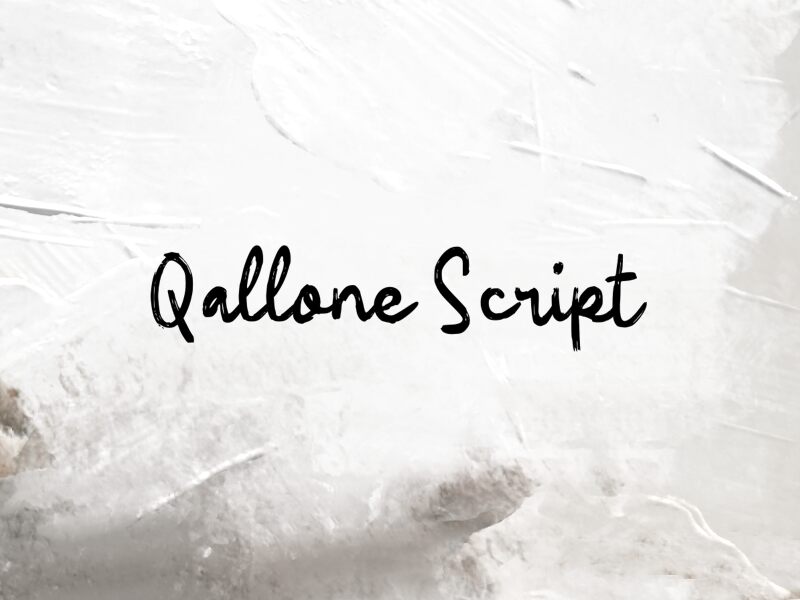
Qallone Script font by wep is a free brush font with a contemporary look inspired by modern scripts. The font is designed to suit a wide range of personal and professional projects as it comes with a casual and playful atmosphere thanks to its handwritten aesthetic, organic feel, and relaxed vibe. The informal style allows for inviting and friendly typography suitable for effective communication.
Qallone Script can be used in branding, identity design, invitation cards, greeting cards, social media, ads, posters, flyers, product packaging, merchandise, labels, magazines, newsletters, and more. The versatile font can be used in points of sale for shopping windows, online marketing for developing your following, or in journals as part of the personal calligraphy of a greeting card or invitation.
Qallone Script is a beautifully crafted free font that combines elegance with modern flair. It is perfect for a variety of design projects, including branding, invitations, and social media graphics. The organic flow of Qallone Script adds a personal touch to any text, making it a great choice for creative endeavors.